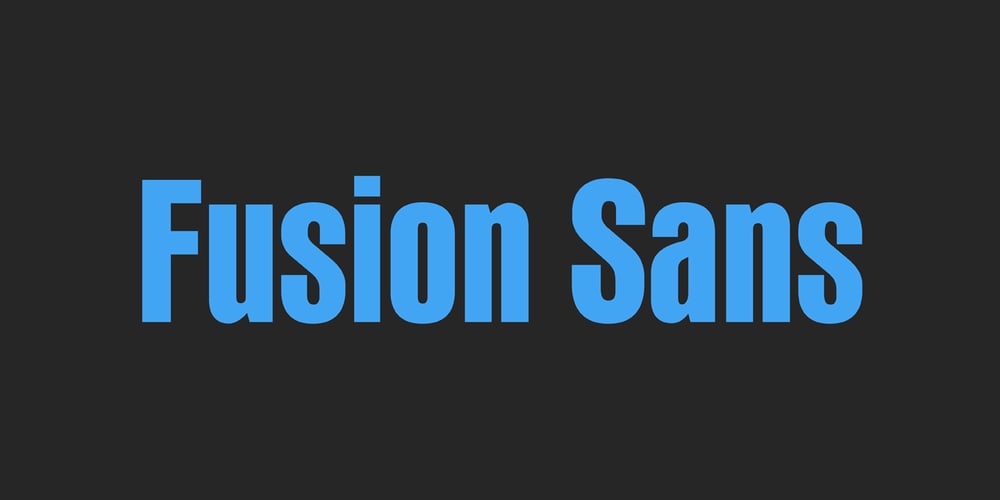
PF Fusion Sans Pro
PF Fusion Sans Pro font
PF Fusion Sans Pro Font Family was designed by Panos Vassiliou and published by Parachute. PF Fusion Sans Pro contains 4 styles and family package options. Fusion Sans is an amalgamation of traditional early nineteenth-century sans-serif letters. Despite its monotone structure it retains certain features common to roman. For instance lowercase ‘a’ and the two-storey ‘g’ are normal roman characters, while most letters are designed with a thinning of stroke at the junction of rounds to stems. Other letters are borrowed from earlier gothics, like lowercase ‘t’ which was first seen on a typeface that was developed by Paul Rand for Westinghouse in 1960. Fusion Sans is a tall family of 4 weights which is suitable for long headlines. The new ‘Pro’ version developed in 2006, provides support for all European languages including Greek and Cyrillic while it comes loaded with 19 special OpenType features.